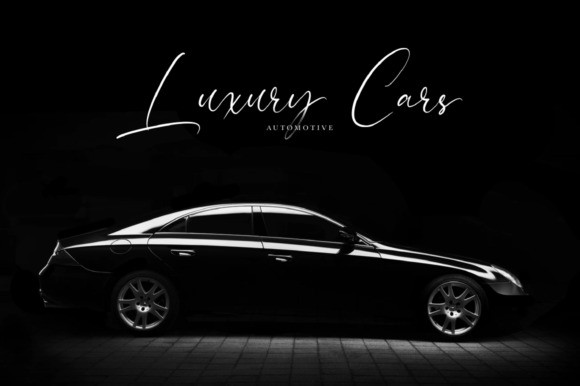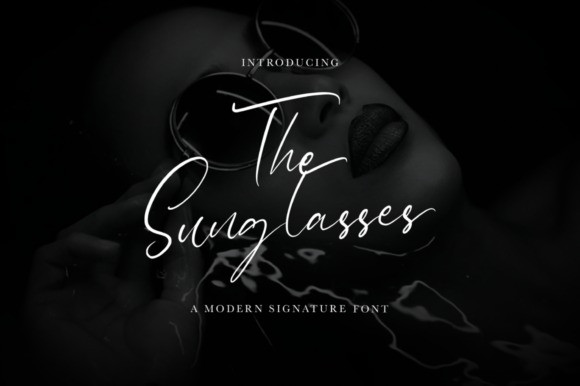
The Sunglasses Font
The Sunglasses Font is a thin lettered and graceful script font. Fall for its ravishing style and use it to create gorgeous wedding invitations, beautiful stationary art, eye-catching social media posts, and much more!